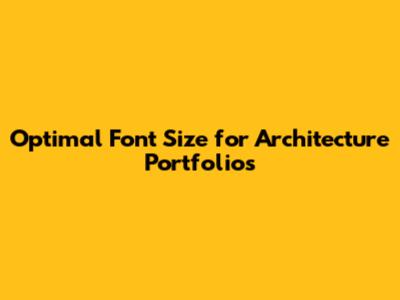
Creating a killer architecture portfolio involves a ton of elements, but one crucial detail that often gets overlooked is font size. Guys, seriously, choosing the right font size can make or break how your portfolio is received. You want your work to shine, not be overshadowed by illegible text or a design that screams amateur. So, let's dive into the nitty-gritty of font sizes and how to nail them in your architecture portfolio.
Why Font Size Matters
Let's get real: your architecture portfolio is your first impression. It's what speaks for you before you even get a chance to open your mouth. Font size plays a massive role in this first impression for several reasons. Think about readability. If your font size is too small, no one's going to squint and strain their eyes to read your brilliant descriptions. They'll just move on. Conversely, if it's too large, it looks like you're shouting, and it takes up valuable real estate that could be used to showcase your designs. Readability is king. Also, consider professionalism. A well-chosen font size screams attention to detail. It tells potential employers or clients that you care about the presentation just as much as the content. It shows you understand the importance of clear communication and visual hierarchy. A sloppy font size, on the other hand, can make your portfolio look rushed and unprofessional, even if your designs are top-notch. Finally, the visual hierarchy is essential. Font size helps guide the reader's eye through your portfolio. Headings should be larger and bolder to draw attention, while body text should be smaller and more subtle. This creates a clear visual hierarchy that makes your portfolio easy to navigate and understand. It ensures that the most important information stands out and that the reader can quickly grasp the key concepts.
Recommended Font Sizes for Different Portfolio Elements
Okay, so what are the magic numbers? There's no one-size-fits-all answer, but here’s a general guideline to get you started.
Headings
For main headings, think big but not obnoxious. A font size between 24pt and 36pt usually works well. This ensures that your section titles stand out and grab the reader's attention without overwhelming the page. Use this size for major sections like "About Me," "Projects," and "Skills." For subheadings, a range of 18pt to 24pt is ideal. These headings should be smaller than the main headings but still prominent enough to break up the text and guide the reader through each section. Use subheadings to introduce specific projects, skills, or aspects of your experience. Remember to maintain a clear visual hierarchy by making subheadings noticeably smaller than main headings. Consistency is key here. Stick to a consistent font size and style for all headings of the same level throughout your portfolio. This creates a polished and professional look. Experiment with different font weights (bold, semi-bold, regular) to further differentiate headings and add visual interest. Just be sure to use font weights sparingly and purposefully.
Body Text
The workhorse of your portfolio, body text should be easily readable and comfortable on the eyes. A font size between 10pt and 12pt is generally recommended. This range ensures that your text is legible without being too large or distracting. Choose a font that is specifically designed for body text, as these fonts are typically optimized for readability at smaller sizes. Avoid using overly decorative or stylized fonts for body text, as they can be difficult to read and detract from the content. Pay attention to line height and spacing. Adequate line height (the vertical space between lines of text) is crucial for readability. A line height of 1.4 to 1.6 times the font size is generally recommended. Also, ensure that there is enough space between paragraphs to create visual separation and prevent the text from looking cluttered. Consider the overall layout of your portfolio when choosing a font size for body text. If your portfolio is heavily image-based, you may be able to get away with a slightly smaller font size. However, if your portfolio is text-heavy, you will want to err on the side of larger font size to ensure readability.
Captions and Labels
Captions and labels provide context and information for your images and diagrams. They should be smaller than the body text but still legible. A font size between 8pt and 10pt typically works well. Place captions and labels close to the images or diagrams they refer to, so there is a clear visual connection. Use a font that complements the body text and maintains a consistent style throughout your portfolio. Consider using a slightly different font weight (e.g., italic or bold) to differentiate captions and labels from the body text. Keep captions and labels concise and to the point. They should provide essential information without overwhelming the reader. If you need to include more detailed information, consider adding it to the body text instead.
Choosing the Right Fonts
Font choice is just as important as font size. Think of your fonts as the voice of your portfolio. You want a voice that's clear, professional, and reflects your personal style. Serif fonts (like Times New Roman or Garamond) are generally considered more traditional and formal, while sans-serif fonts (like Arial or Helvetica) are seen as more modern and clean. For body text, it’s usually best to stick with sans-serif fonts for on-screen viewing, as they tend to be more readable. For headings, you can experiment a bit more, but make sure the font you choose complements your body text. Limit yourself to two or three fonts max. Too many fonts can make your portfolio look chaotic and unprofessional. Use different font weights (bold, italic, etc.) to create visual hierarchy and add interest.
Tools and Software for Managing Font Sizes
Alright, now that we've covered the theory, let's talk about the tools you'll use to put it into practice. Most design software, like Adobe InDesign, Photoshop, and Illustrator, allows you to precisely control font sizes. InDesign is particularly well-suited for creating multi-page documents like portfolios. It offers advanced typography features and allows you to create and apply styles, ensuring consistency throughout your portfolio. Photoshop and Illustrator are better suited for creating individual pages or graphics. They also offer a wide range of font options and customization features. Online portfolio platforms, like Behance and Adobe Portfolio, also provide tools for managing font sizes. However, the options may be more limited than in dedicated design software. Experiment with different font sizes and styles within your chosen platform to find what works best for your content.
Testing and Refining Your Font Choices
Don't just pick a font size and run with it. Test it out! Print out a sample page of your portfolio and see how it looks in the real world. Is the text easy to read? Does the font size complement the overall design? Get feedback from others. Ask friends, classmates, or mentors to review your portfolio and provide their thoughts on the font choices. Fresh eyes can often spot issues that you may have overlooked. View your portfolio on different devices. Your portfolio will likely be viewed on a variety of devices, from desktop computers to tablets to smartphones. Make sure your font sizes are legible and well-proportioned on all devices. Be prepared to make adjustments. Font sizes may need to be tweaked based on the specific layout and design of your portfolio. Don't be afraid to experiment and make changes until you are happy with the result.
Common Mistakes to Avoid
Okay, let's cover some common pitfalls to avoid. First, don't use too many different font sizes. Stick to a consistent hierarchy. This creates a polished and professional look. Avoid using font sizes that are too small. It's better to err on the side of larger font sizes to ensure readability. Don't use overly decorative or stylized fonts for body text. These fonts can be difficult to read and detract from the content. Be careful with color contrast. Make sure there is enough contrast between the text and the background. Light text on a dark background or vice versa can be easier on the eyes. Finally, don't neglect line height and spacing. Adequate line height and spacing are crucial for readability.
Examples of Great Architecture Portfolio Font Usage
To inspire you, let's look at some examples of architecture portfolios that use font sizes effectively. Check out portfolios on Behance, ArchDaily, and other online platforms. Pay attention to how they use font sizes to create visual hierarchy and improve readability. Notice how they use different font weights (bold, italic, etc.) to add interest and emphasis. Analyze their font choices and consider how they complement the overall design of the portfolio. Look for portfolios that are similar in style and content to your own. This will give you a better sense of what font sizes and styles work well for your specific type of portfolio.